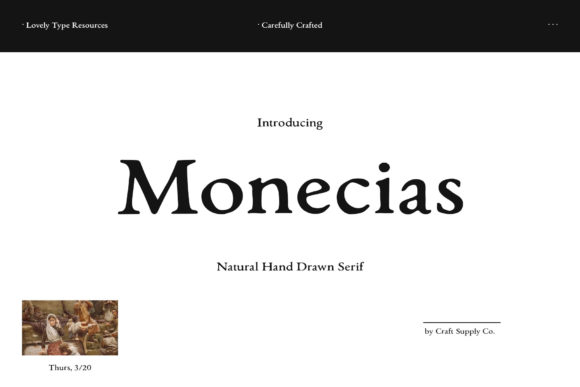
Step into the world of Monecias, a beautiful serif font family that captures the essence of tradition while embracing a modern flair. This carefully crafted font, brought to life by the creative minds at CraftSupplyCo, is a testament to the timeless elegance of serif fonts, reimagined for the digital age.
With its delicate curves, graceful strokes, and a hint of nostalgia, Monecias is the perfect choice for designers, crafters, and creatives seeking a font that exudes sophistication and charm. Its versatility is unmatched, effortlessly complementing a wide range of projects, from elegant invitations and wedding stationery to eye-catching logos and branding materials.
Unleash your creativity and let Monecias elevate your designs to new heights. Its refined details and timeless appeal will add a touch of class and elegance to any project, leaving a lasting impression on your audience.
Dive into the world of Monecias and let your imagination soar. From heartfelt letters and captivating blog posts to stunning social media graphics and printable art, this font will effortlessly transform your words into captivating visual masterpieces.
So, embark on this creative journey with Monecias, and let your designs blossom into works of art. Its versatility and timeless beauty will captivate your audience, leaving them spellbound by the sheer brilliance of your creations.